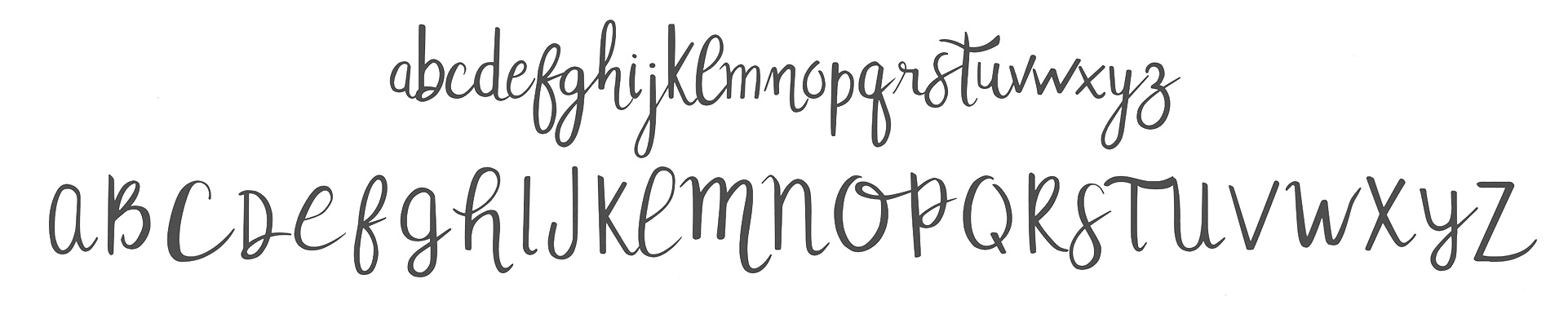
Christine Teixeira
Art director in Montreal who created the handcrafted font duo Bliss and Blush and the hand-drawn typefaces Tropicalling and Send My Love in 2018. Creative Fabrica link. |